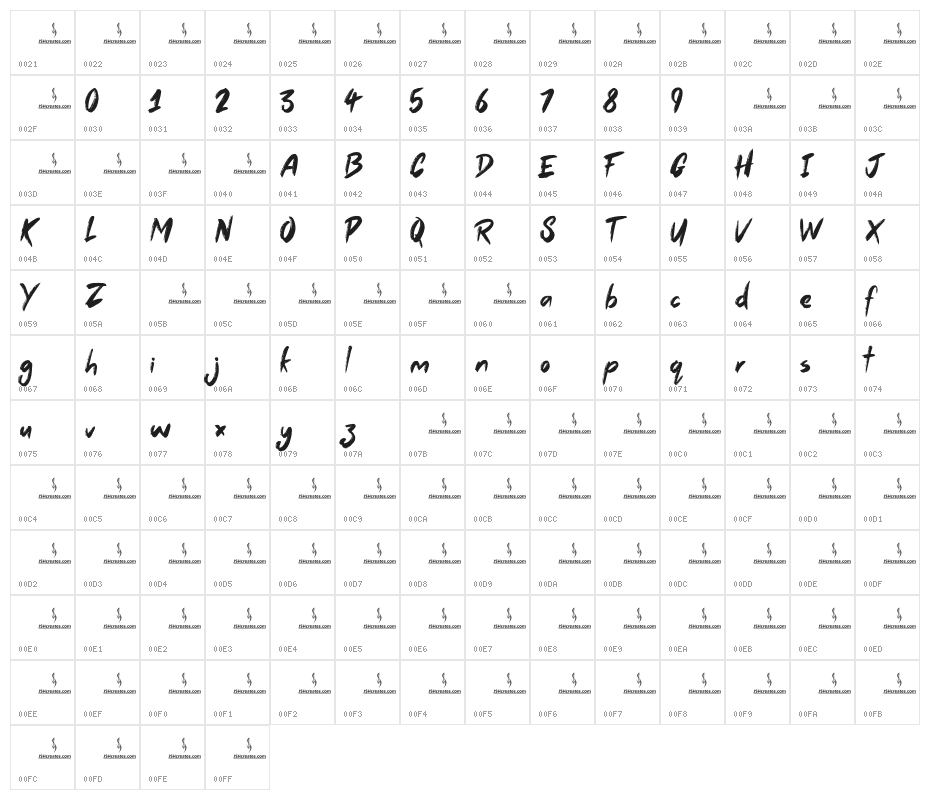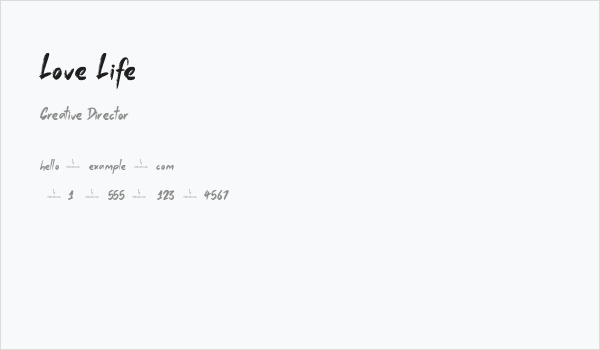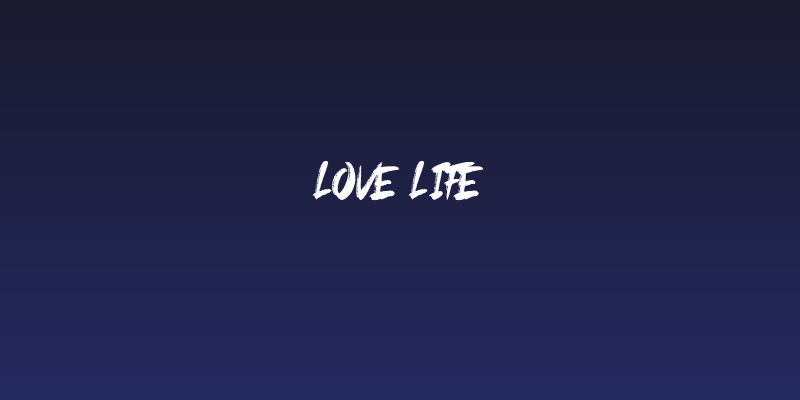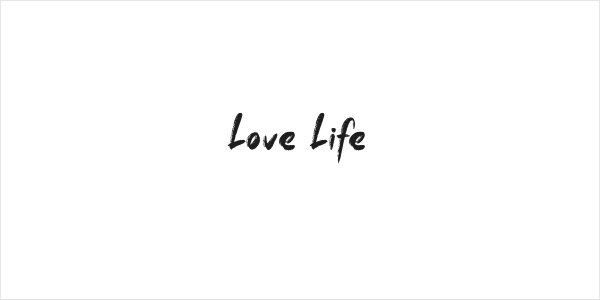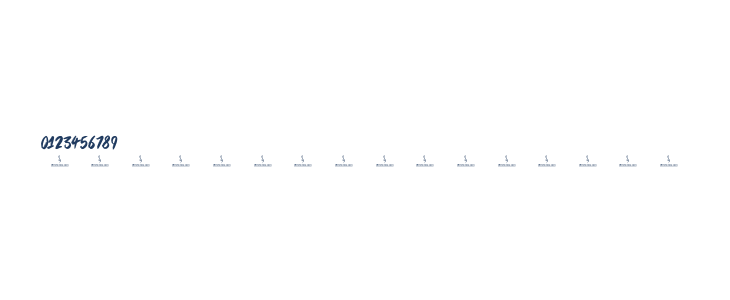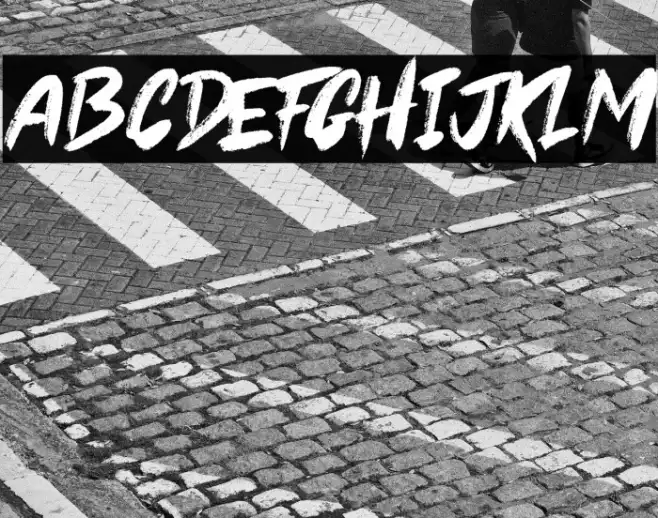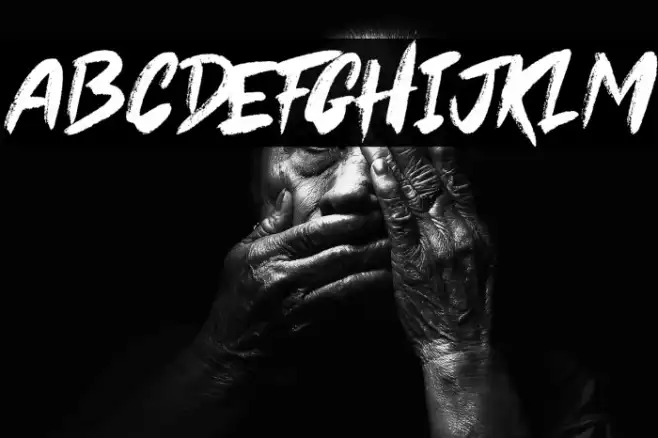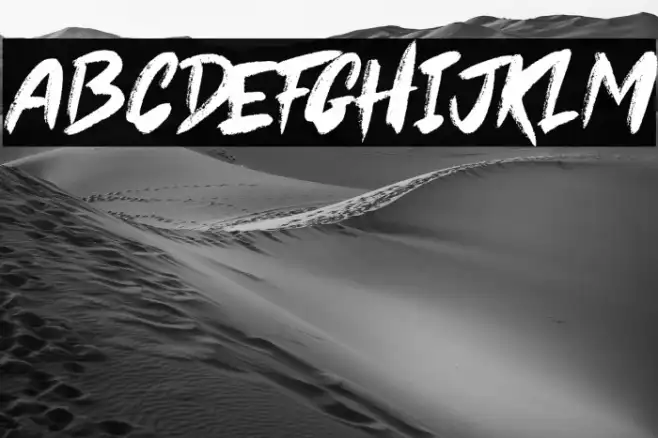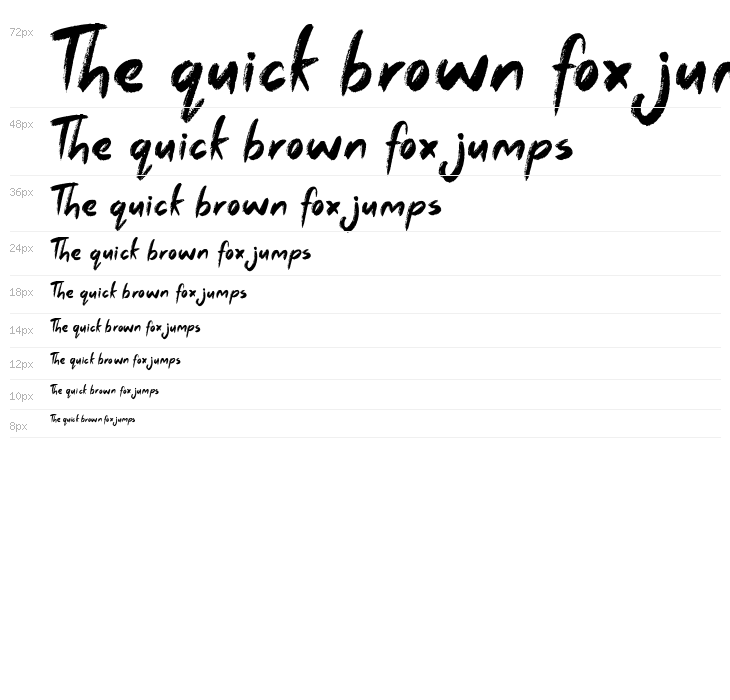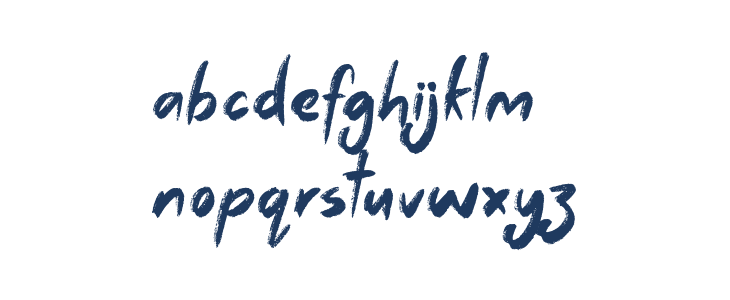
Love Life Font
Love Life Description
This font exudes a bold and energetic style, characterized by its brush-like strokes that give it a dynamic and expressive appearance. The uppercase and lowercase letters maintain a consistent flow, with slightly irregular edges that add to its hand-drawn aesthetic. The numerals and special characters follow the same artistic style, ensuring a cohesive look across all elements. Its bold presence makes it suitable for attention-grabbing designs, while the textured strokes provide a sense of movement and creativity.